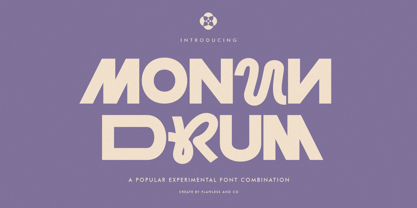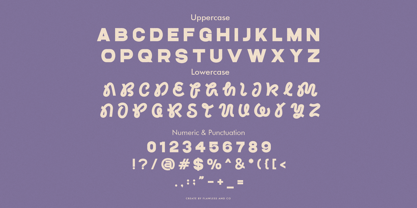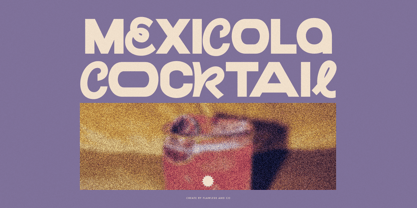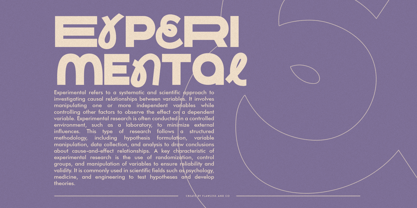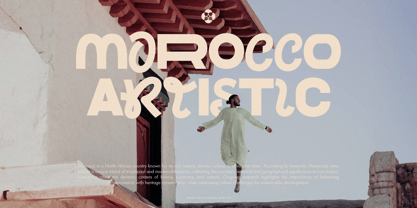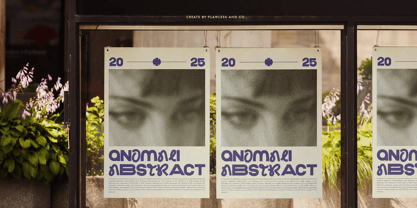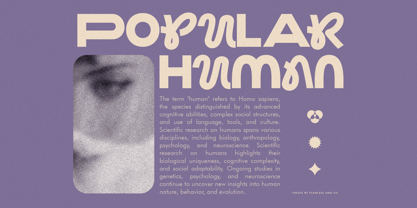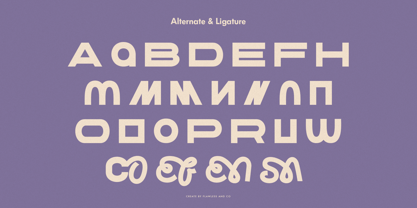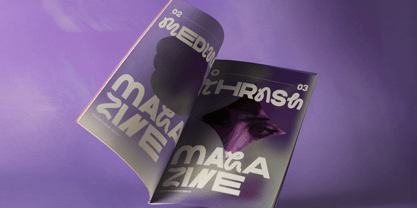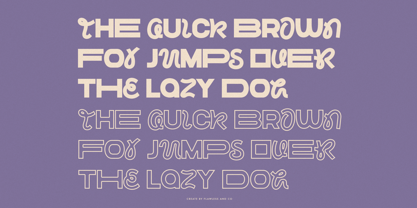
Monundrum
by Flawlessandco
The Monundrum Font Family was designed by Achmad Yani and published by Flawlessandco. Monundrum contains 1 styles. More about this family
Monundrum is a bold sans serif font with a striking display combination, designed to make a powerful statement. Its strong letterforms and modern aesthetic make it suitable for headlines, posters, branding, advertising, sports designs, and eye-catching social media graphics. Perfect for projects that demand boldness and impact.
Features :
Multilingual, Uppercase alphabet A-Z, Lowercase alphabet a-z, Numbers 0-9, Some punctuation, Alternates and Ligatures